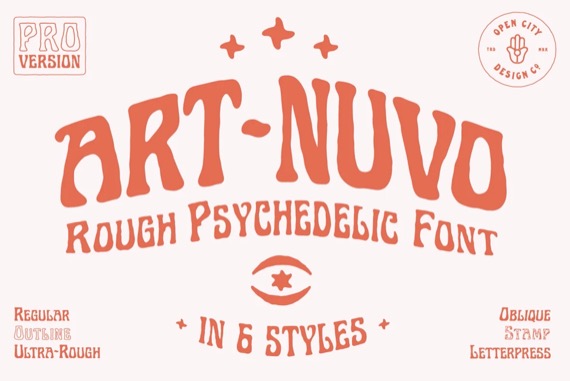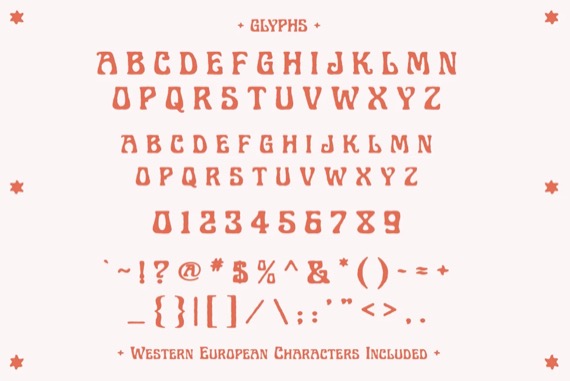
Art-Nuvo Font from OPENCITYDESIGNCO is an elegant and classic retro Rough Psychedelic Font. Art-Nuvo is a hand drawn psychedelic font family that comes in 6 carefully crafted styles. It is great for music artwork and trippy/experimental themes.
Art-Nuvo Retro Display Font